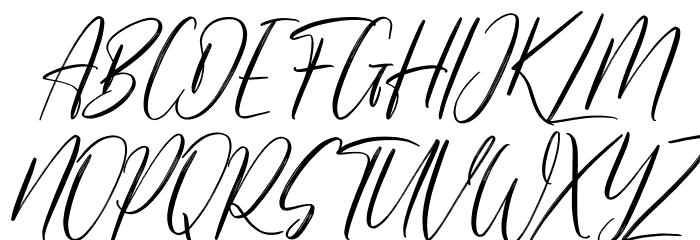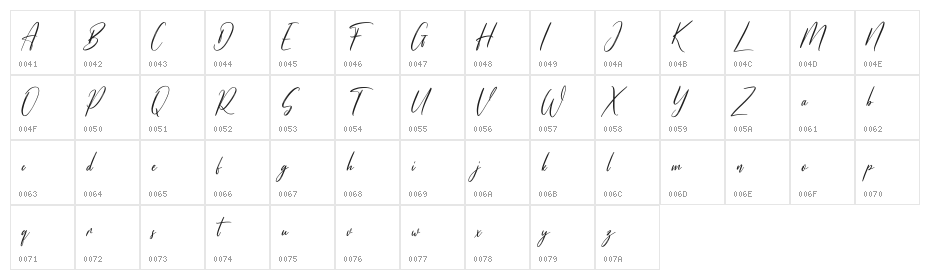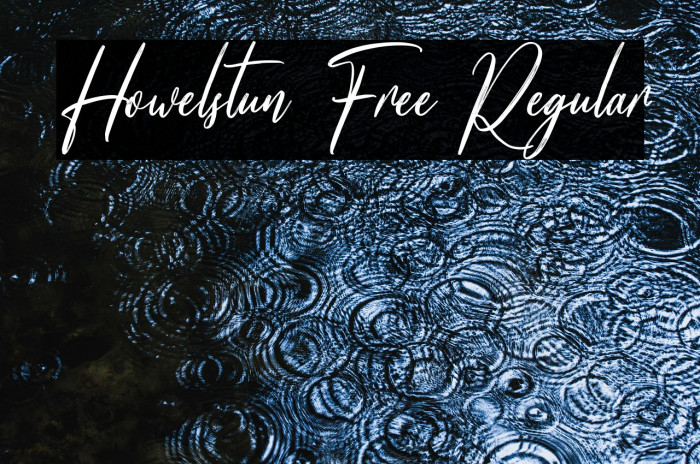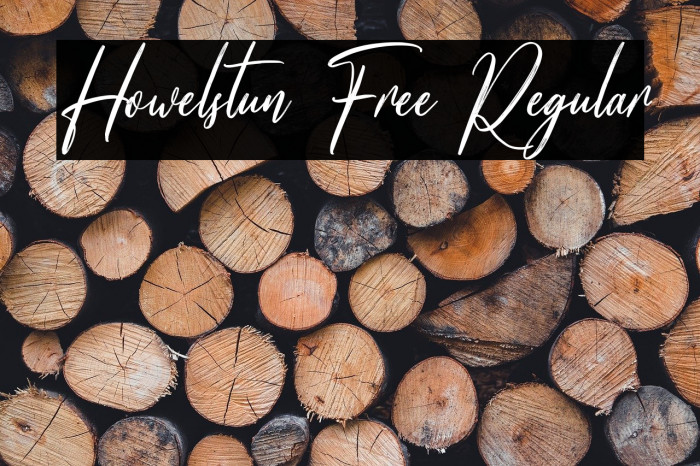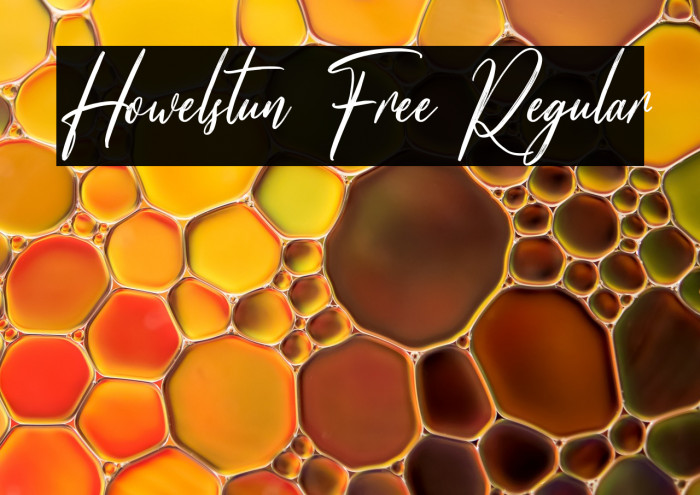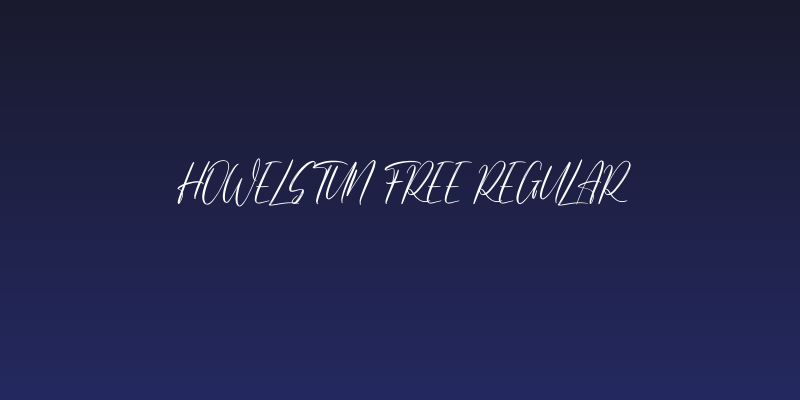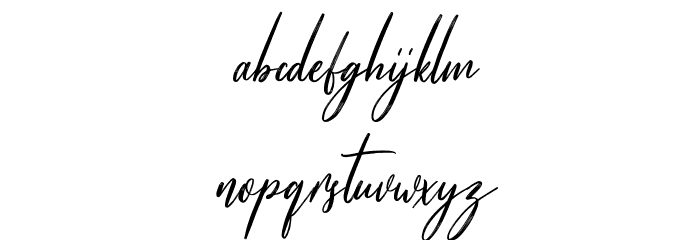
Howelstun Free Regular Font
Howelstun Free Regular Description
This font features an elegant and flowing script style, characterized by its fluid, cursive strokes and a sense of movement. The uppercase letters are bold and sweeping, with dramatic flourishes that give a sense of grandeur and sophistication. The lowercase letters maintain a consistent style, offering a more delicate and refined appearance. The overall design is reminiscent of traditional calligraphy, yet it maintains a modern twist with its clean lines and balanced proportions. This font is perfect for creating a sense of elegance and style in any design project.